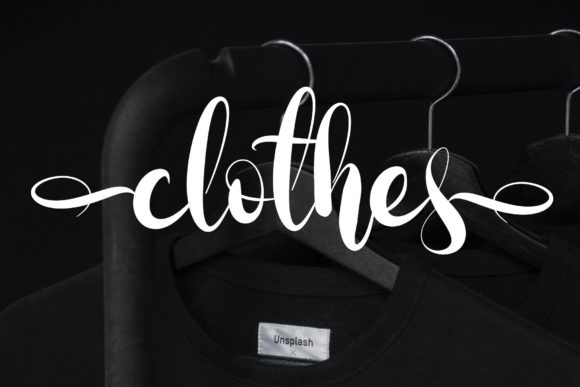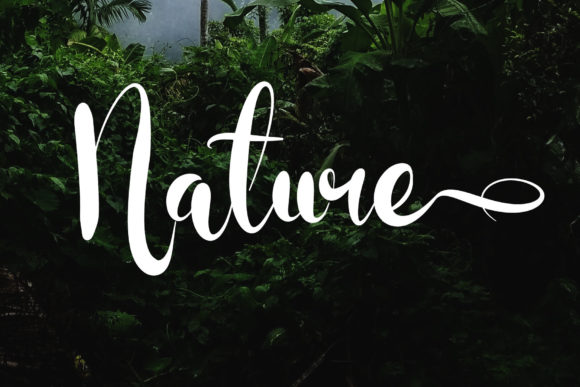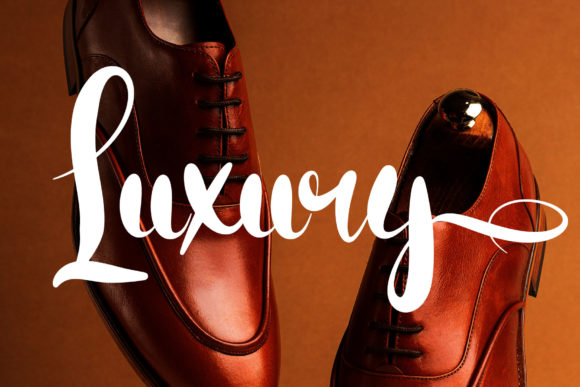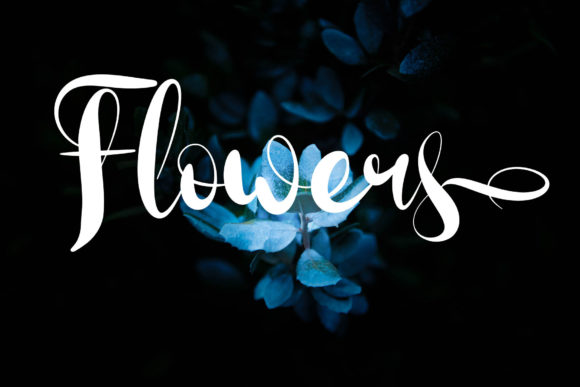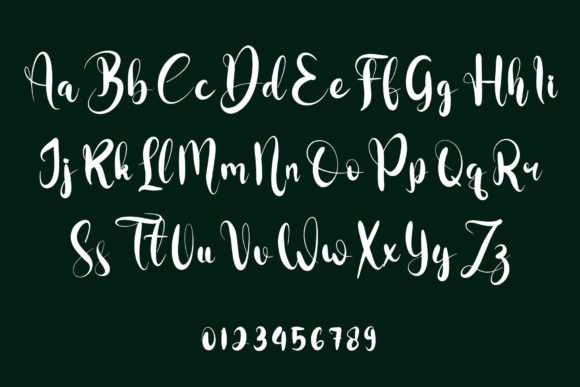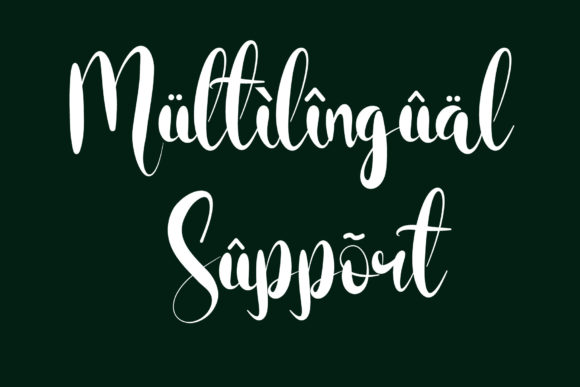
Dollar Font: Elevate Your Designs with its Ravishing Style
In the world of typography, fonts play a crucial role in making or breaking a design. A perfect font can elevate your creation from ordinary to extraordinary. If you’re a designer or crafter looking for a unique and stylish font to add to your library, look no further than the Dollar Font. This distinct and graceful script font is sure to captivate your audience with its ravishing style.
What is Dollar Font?
Dollar Font is a beautiful script font that exudes elegance and sophistication. Its unique design makes it stand out from other fonts, making it perfect for a wide range of design projects. Whether you’re working on a logo, brochure, or social media graphics, this font is sure to make your design pop.
Key Features of Dollar Font
- Unique and Distinctive Design: Dollar Font boasts a one-of-a-kind design that sets it apart from other fonts.
- Elegant and Sophisticated: The font’s script style gives it an air of elegance and sophistication, making it perfect for high-end designs.
- Versatile: Dollar Font can be used for a wide range of design projects, from logos and brochures to social media graphics and more.
- Easy to Read: Despite its unique design, Dollar Font is easy to read, making it perfect for body text and headings.
Why Use Dollar Font?
There are many reasons why designers and crafters should consider adding Dollar Font to their library. Here are a few:
- Adds a Touch of Elegance: Dollar Font’s elegant design adds a touch of sophistication to any design project.
- Stand Out from the Crowd: With its unique design, Dollar Font helps your design stand out from the crowd and grab attention.
- Perfect for Branding: The font’s distinctive design makes it perfect for branding projects, such as logos and letterheads.
- Easy to Pair with Other Fonts: Dollar Font pairs well with other fonts, making it easy to create stunning font combinations.
How to Use Dollar Font
Using Dollar Font is easy. Here are a few tips to get you started:
- Use it as a Headline Font: Dollar Font is perfect for headlines and titles, where its unique design can really shine.
- Pair it with a Sans-Serif Font: Pair Dollar Font with a sans-serif font for body text to create a stunning contrast.
- Experiment with Different Colors: Dollar Font looks great in a variety of colors, so don’t be afraid to experiment and find the perfect hue for your design.
Here are a few tips for designers and crafters looking to get the most out of Dollar Font:
- Use it Sparingly: While Dollar Font is a beautiful font, it can be overwhelming if used too much. Use it sparingly to create a lasting impact.
- Play with Font Sizes: Experiment with different font sizes to create visual interest and hierarchy in your design.
- Don’t be Afraid to Get Creative: Dollar Font is a versatile font that can be used in a variety of creative ways, so don’t be afraid to experiment and try new things.
In conclusion, Dollar Font is a distinct and graceful script font that is sure to elevate any design project. Its unique design, elegant style, and versatility make it a valuable addition to any designer’s or crafter’s font library. Whether you’re working on a logo, brochure, or social media graphics, Dollar Font is the perfect choice. So why wait? Add Dollar Font to your library today and start creating stunning designs that will leave a lasting impression.